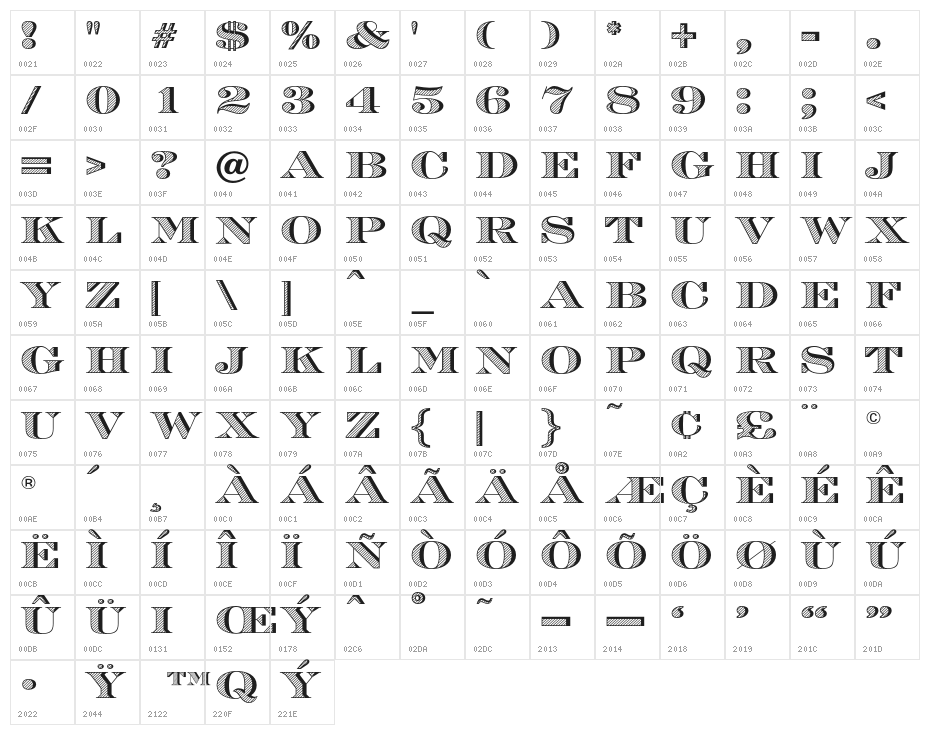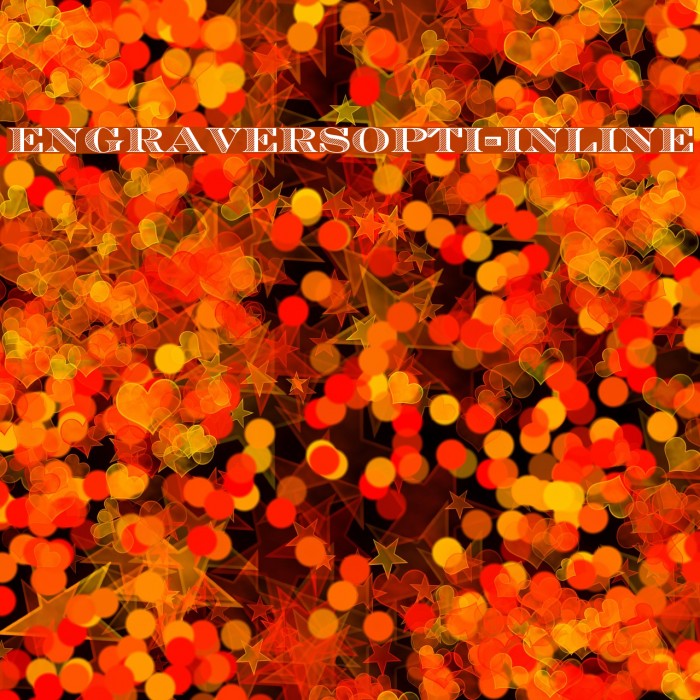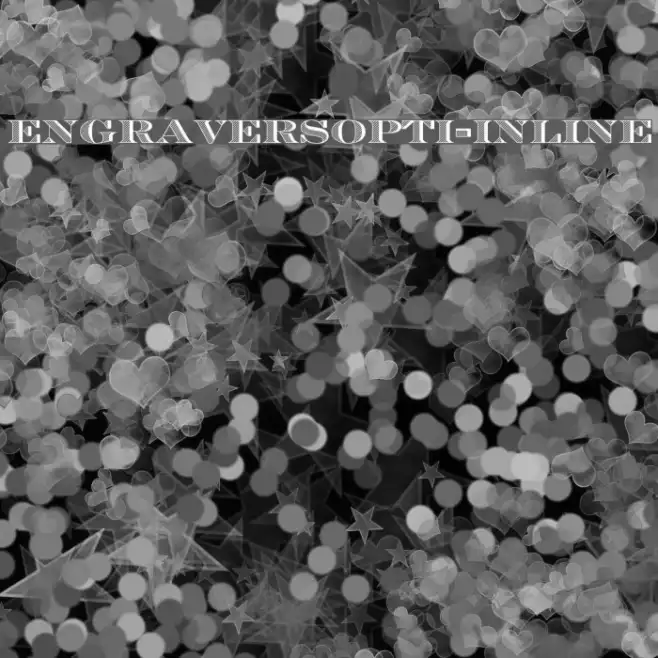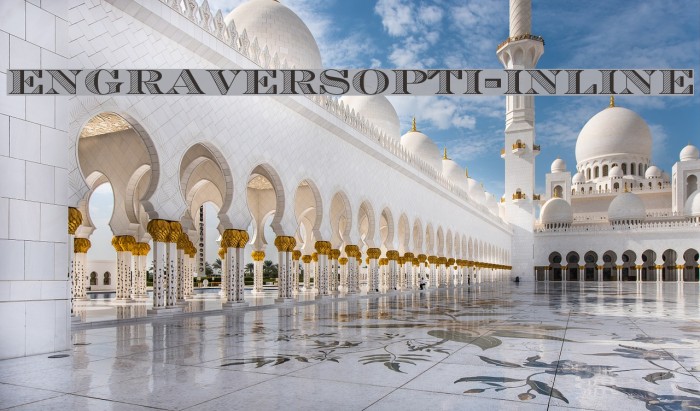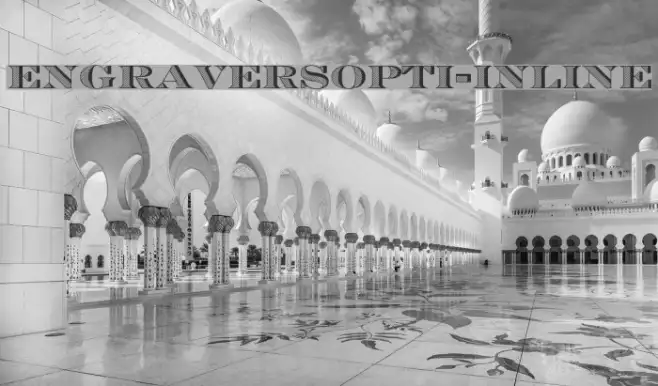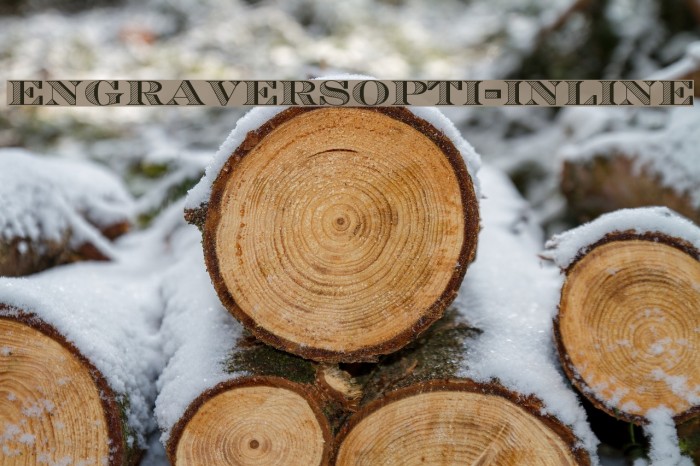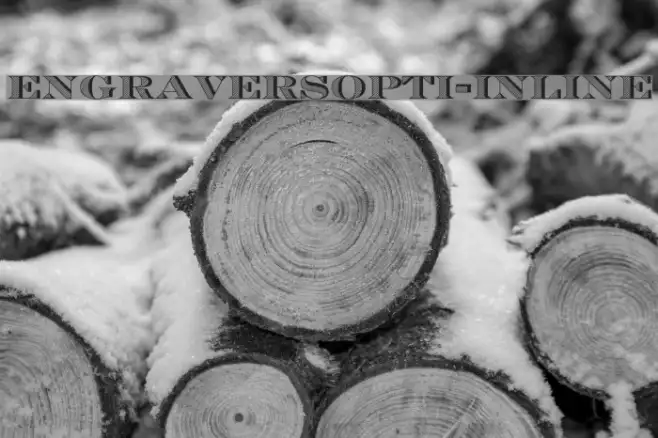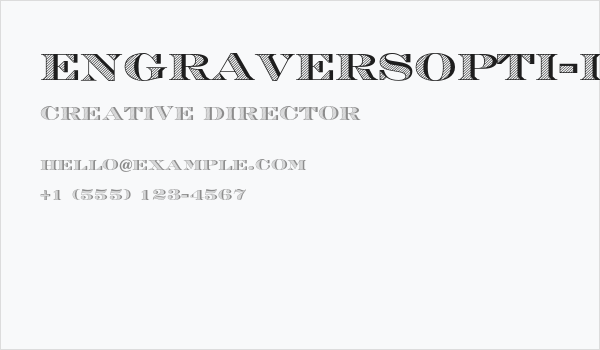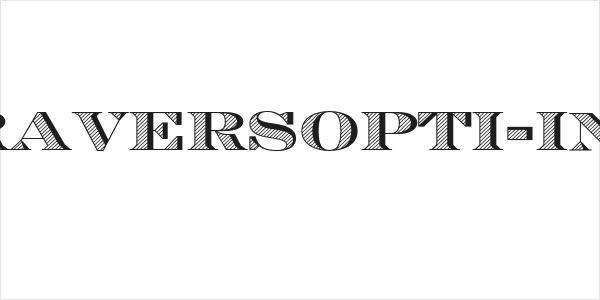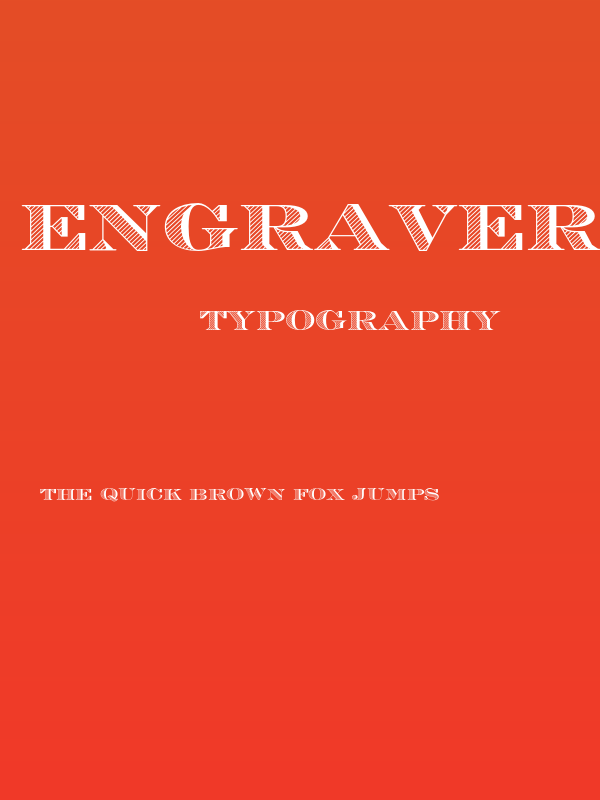
EngraversOpti-Inline Font
EngraversOpti-Inline Description
This font features a distinctive inline design with a classic serif structure. The letters are bold and have a strong presence, accentuated by the intricate inline detailing that runs through each character. This gives the font a sophisticated and elegant appearance, reminiscent of traditional engraving styles. The uppercase and lowercase letters maintain a consistent style, with the numerals and special characters following suit. The overall look is both decorative and formal, making it suitable for projects that require a touch of refinement and class.
| Proposed Projects | Ideal for luxury branding, formal invitations, certificates, and editorial design where a touch of sophistication is desired. |